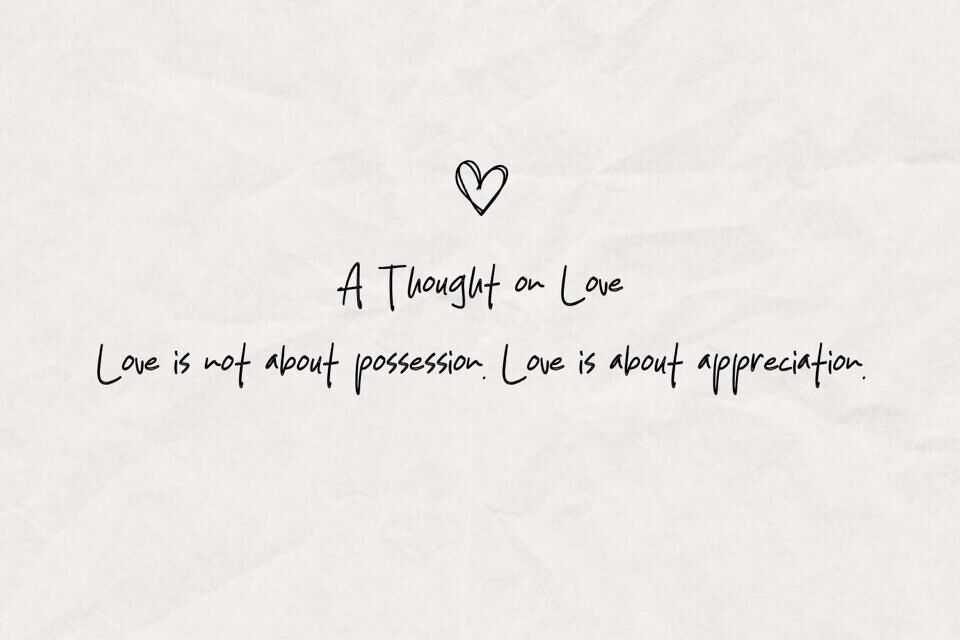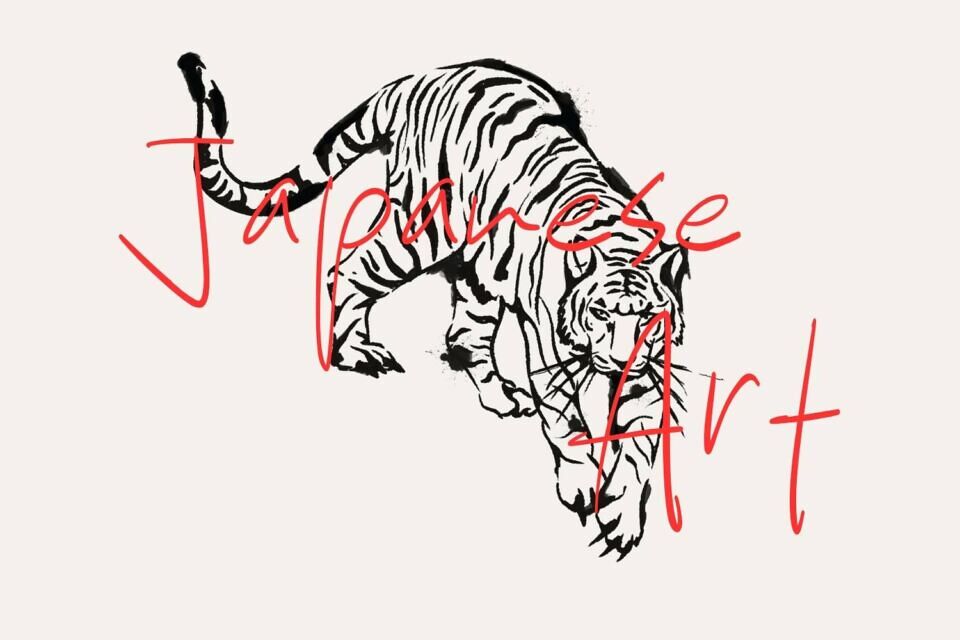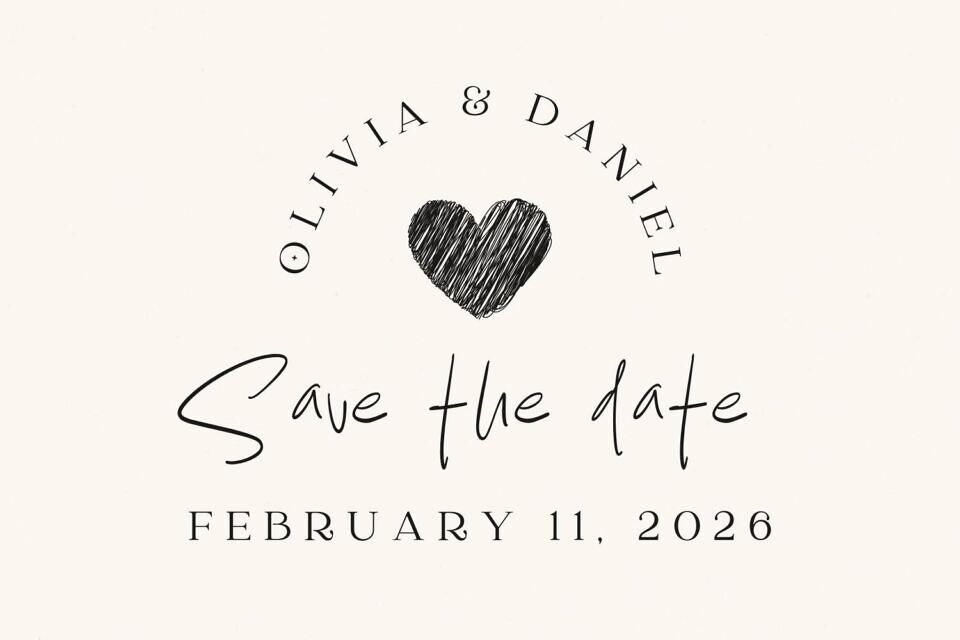
Ghost Hand by MJType is a light, handwritten font that exudes a casual and expressive charm. It includes uppercase and lowercase letters, numbers, punctuation, and multilingual support.
Ideal for personal projects, Ghost Hand adds a touch of authenticity and warmth to your designs.